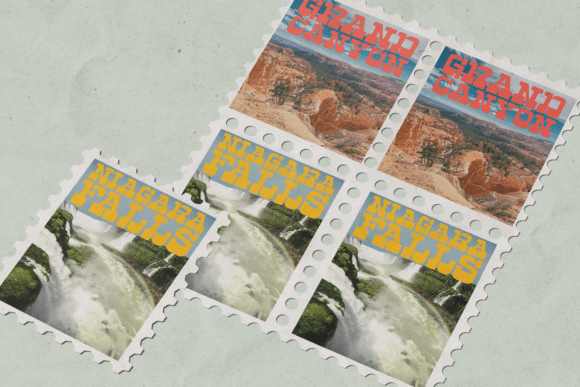
Tekila Font
Tekila is a western display font hat captures the timeless charm of the Western cowboy era. Designed specifically for headlines and logos, this font adds the perfect touch to your design projects.